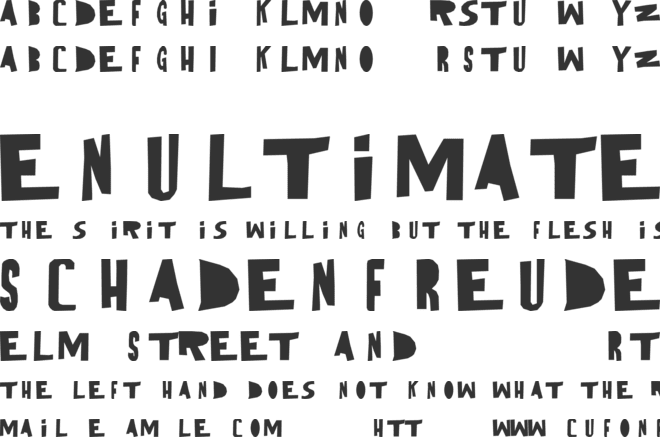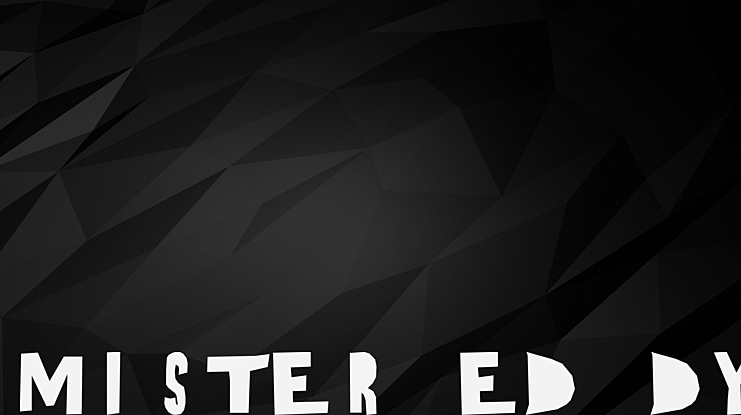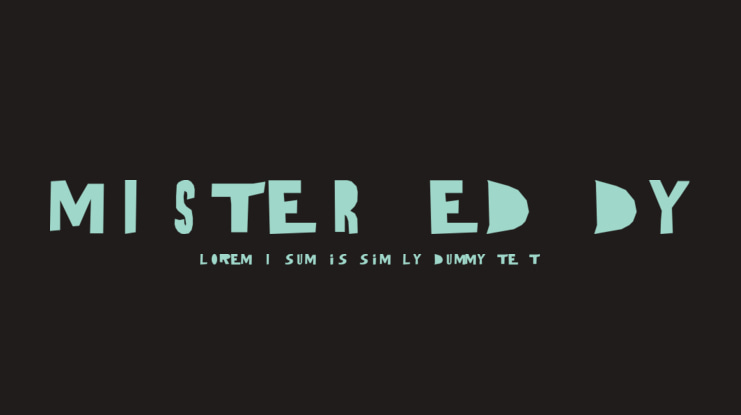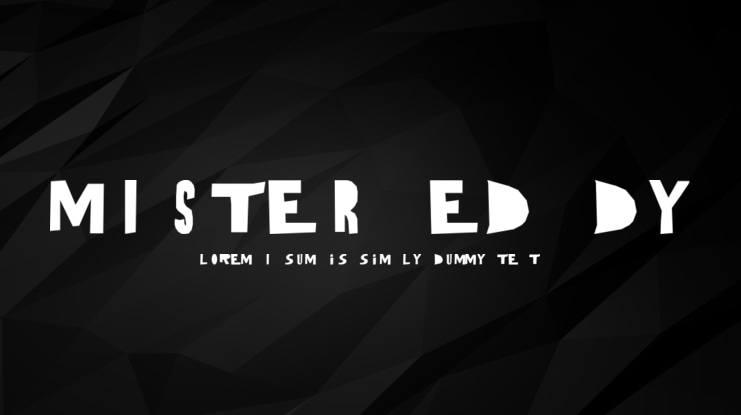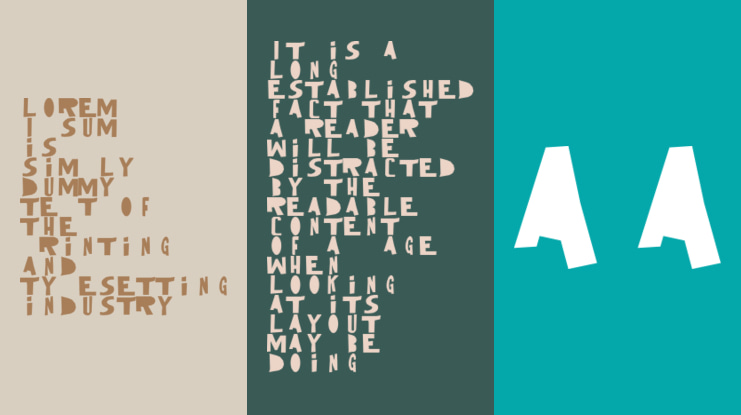
MISTER ED-DY Font
Mister Ed is an American television sitcom produced by Filmways that aired in syndication from January 5 to July 2, 1961, and then on CBS from October 1, 1961, to February 6, 1966.